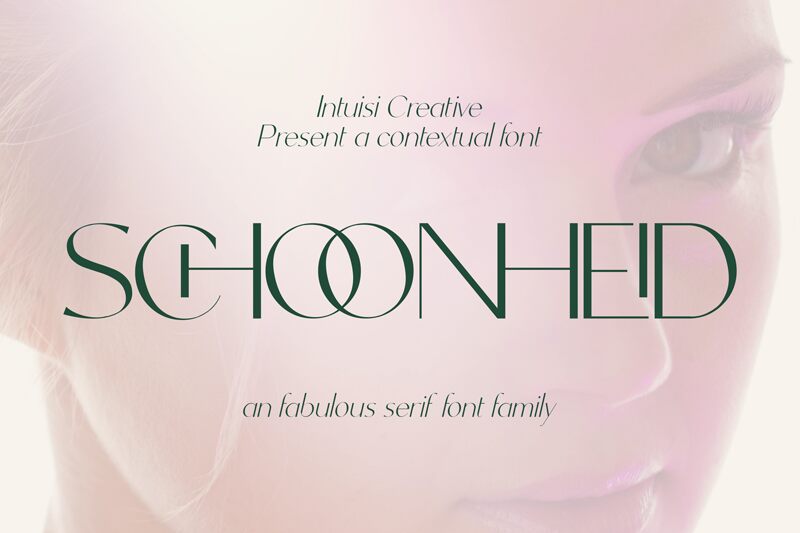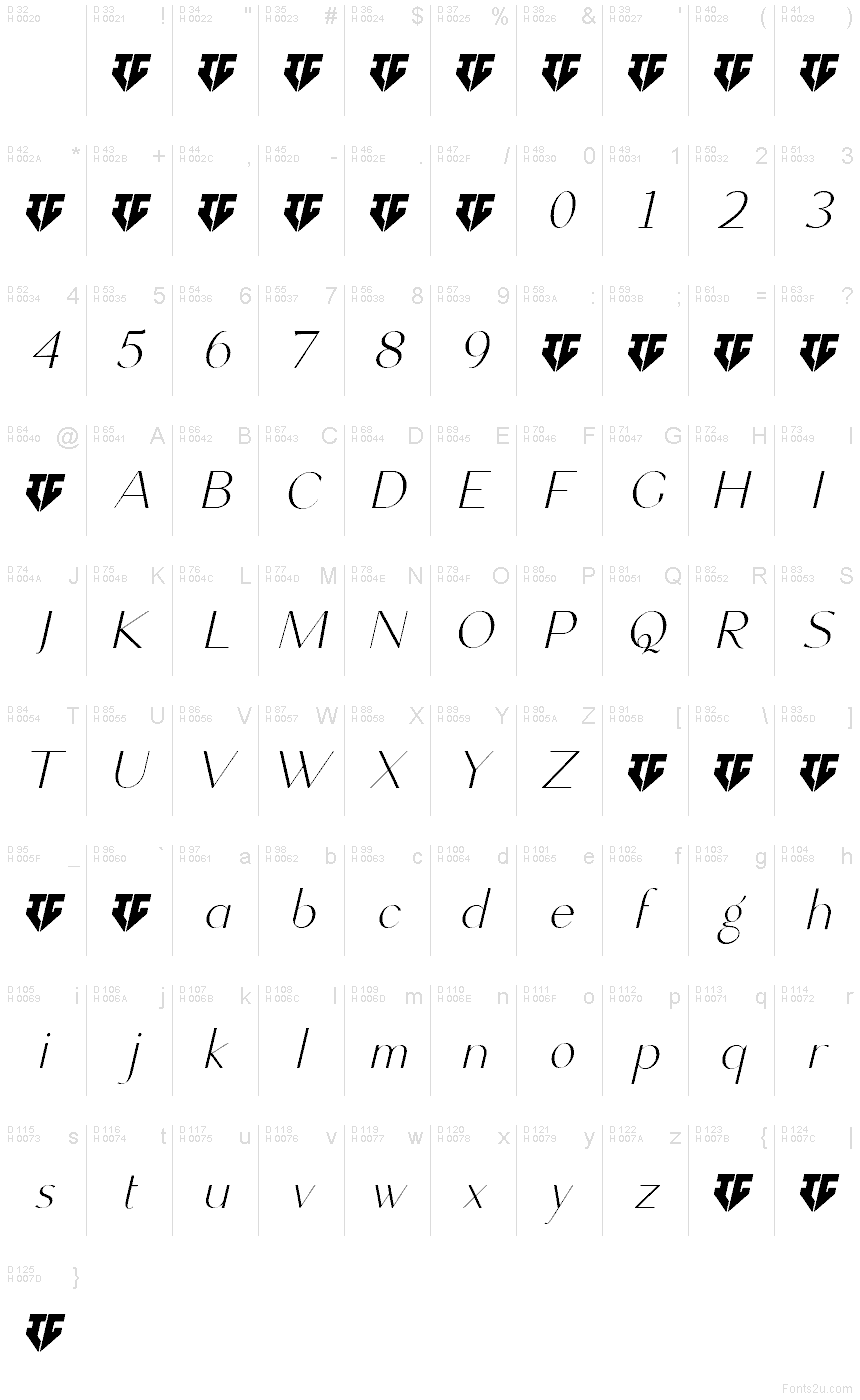
Schoonheid Italic
Schoonheid Italic font by Intuisi Creative is a free elegant serif italic typeface. Its defining trait is a silken, forward-leaning rhythm: fine, tapering strokes and long, whispery serifs give each word a sense of motion, like ink pulled by a quick hand. The spacing stays airy, so even tight lines feel light and breathable, while the slant adds a subtle glamour without shouting.
Using Schoonheid Italic, you get effortless poise for fashion branding, beauty packaging, editorial titles, luxe invitations, boutique logos, and social graphics. This free font shines on larger headings and wordmarks; for body copy, pair it with a simple sans from the Schoonheid family or a neutral grotesk to let the italics sing.